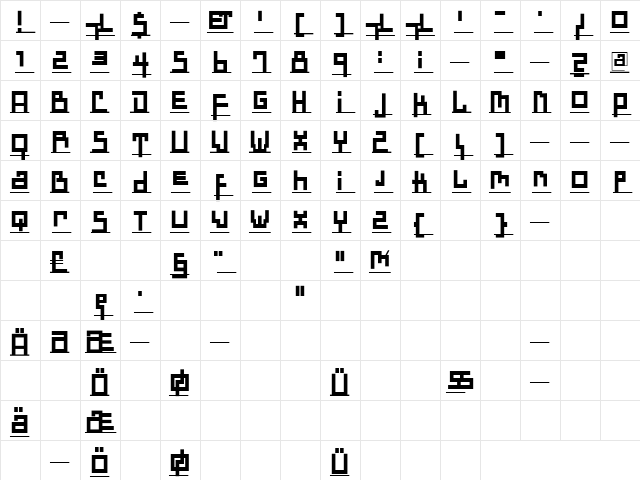
DadasDreams Regular
Design Context for DadasDreams
DadasDreams is a composed and adaptable typeface that performs quietly and consistently across a wide range of design contexts.